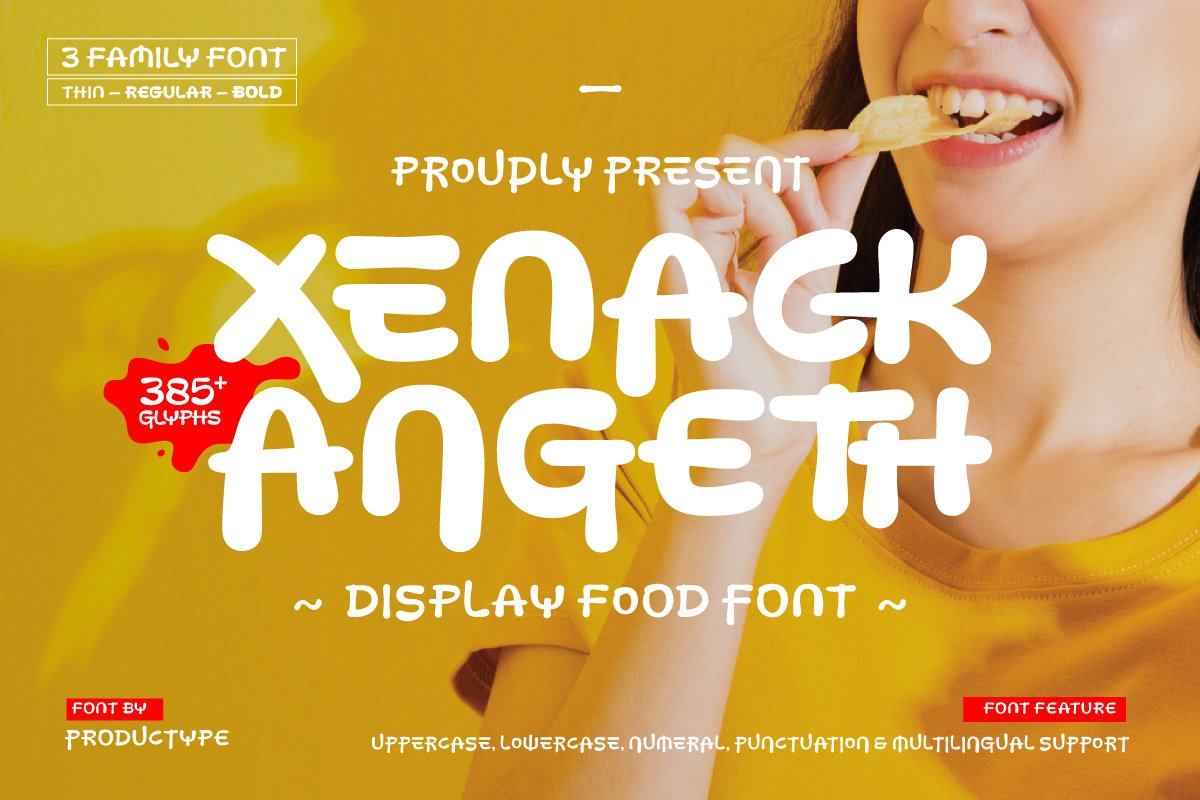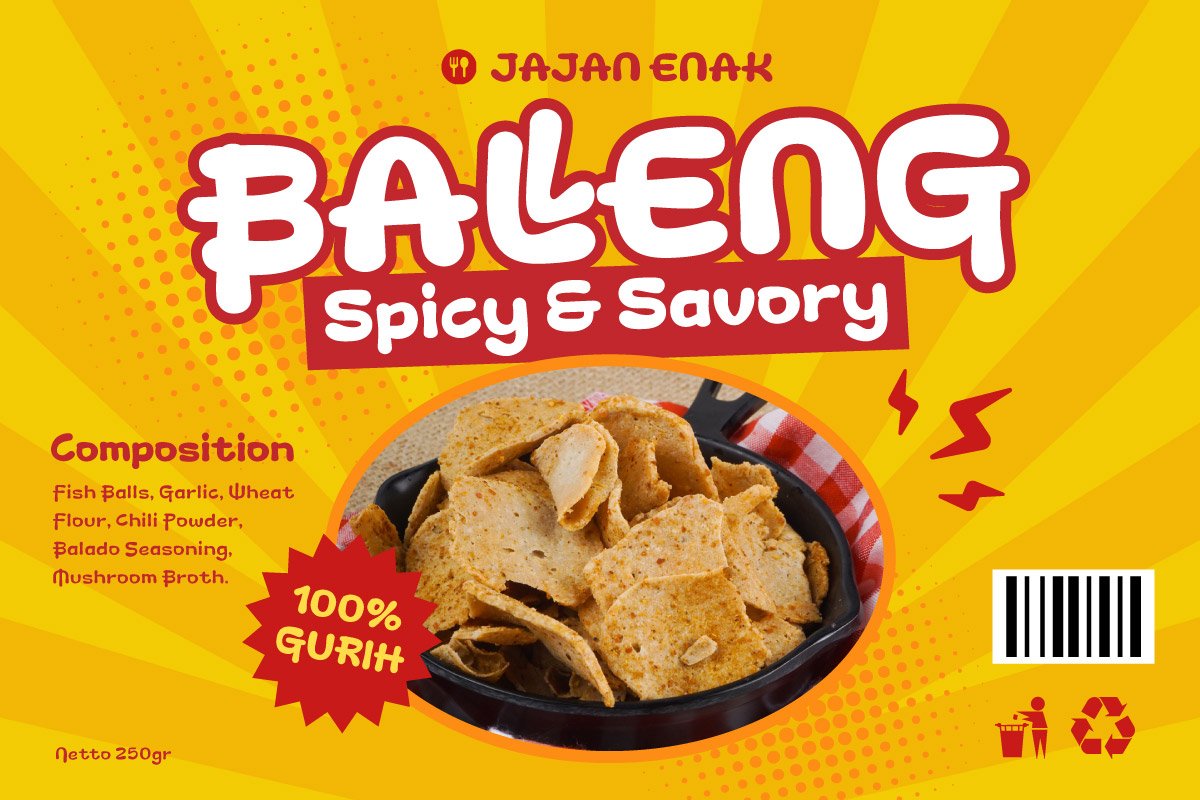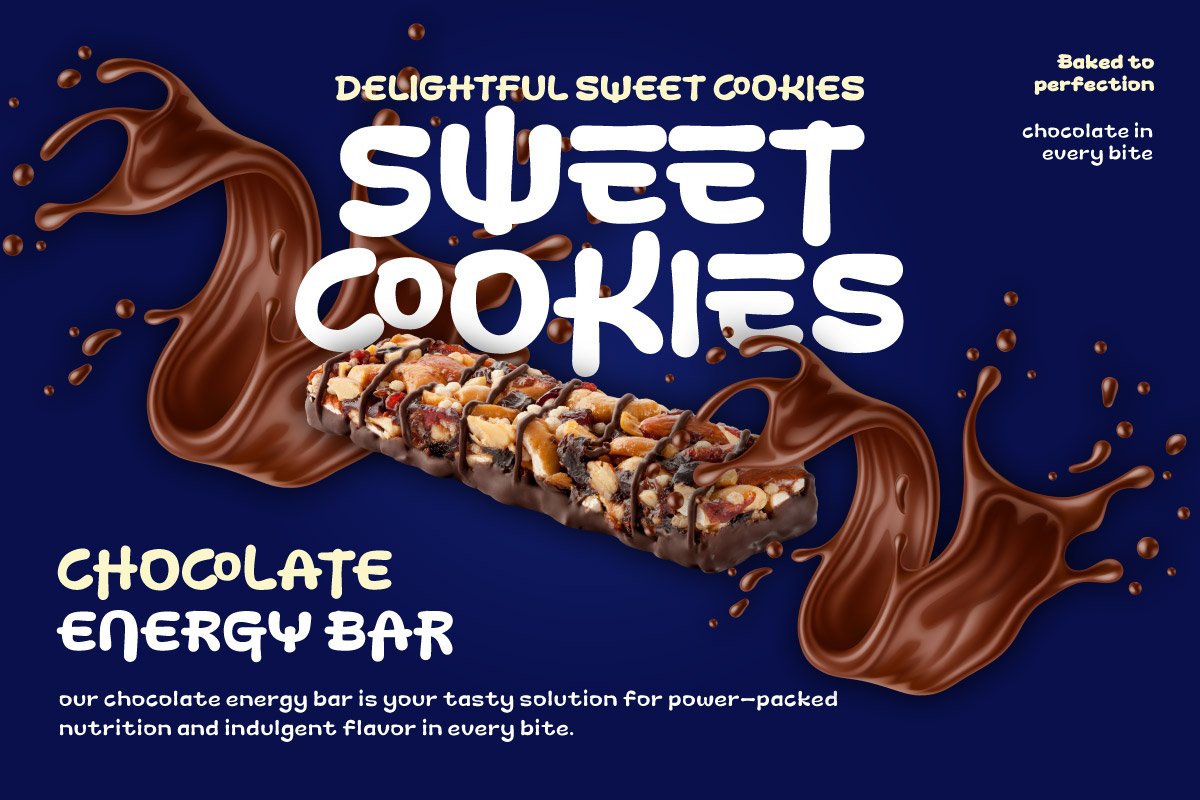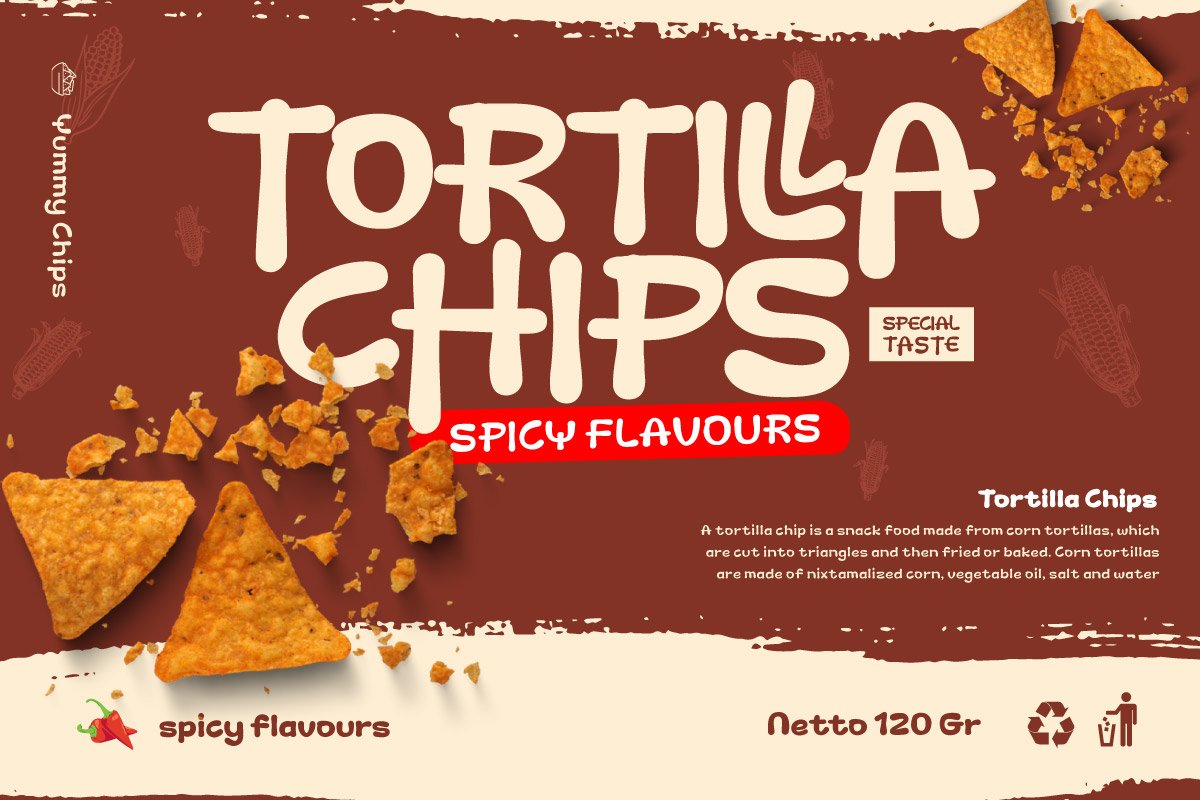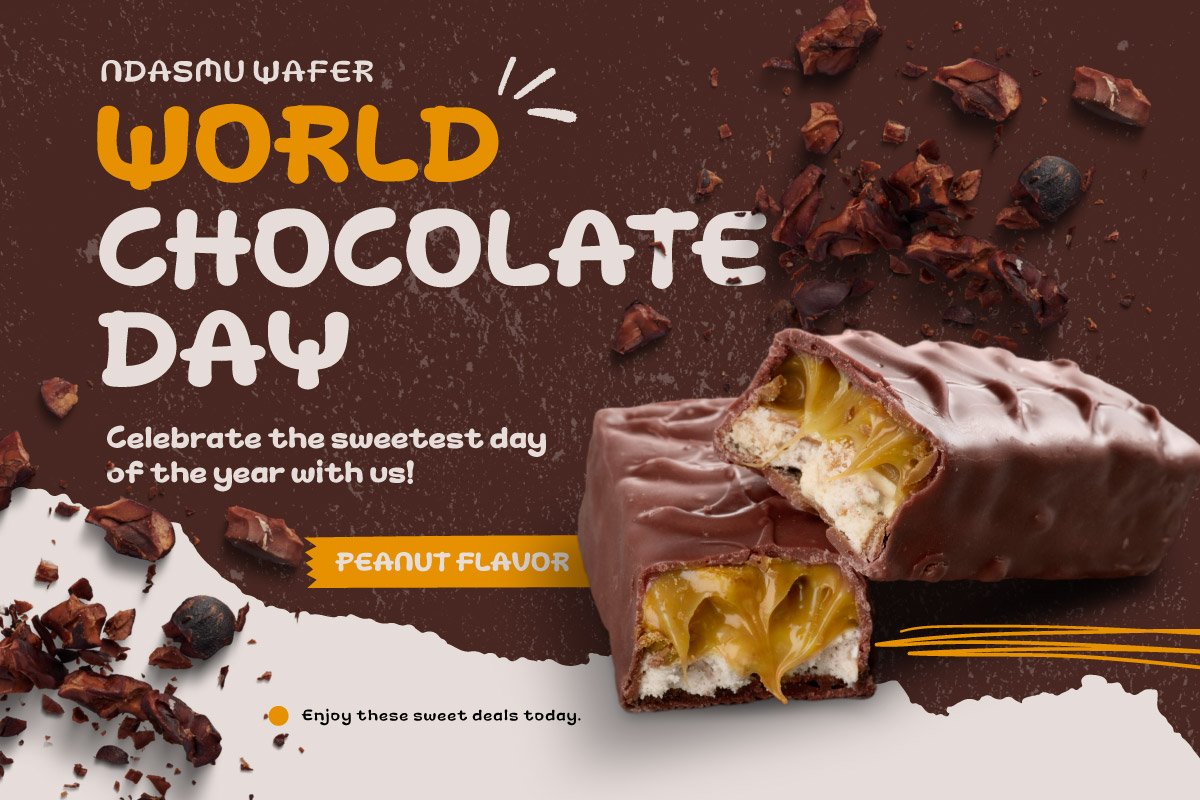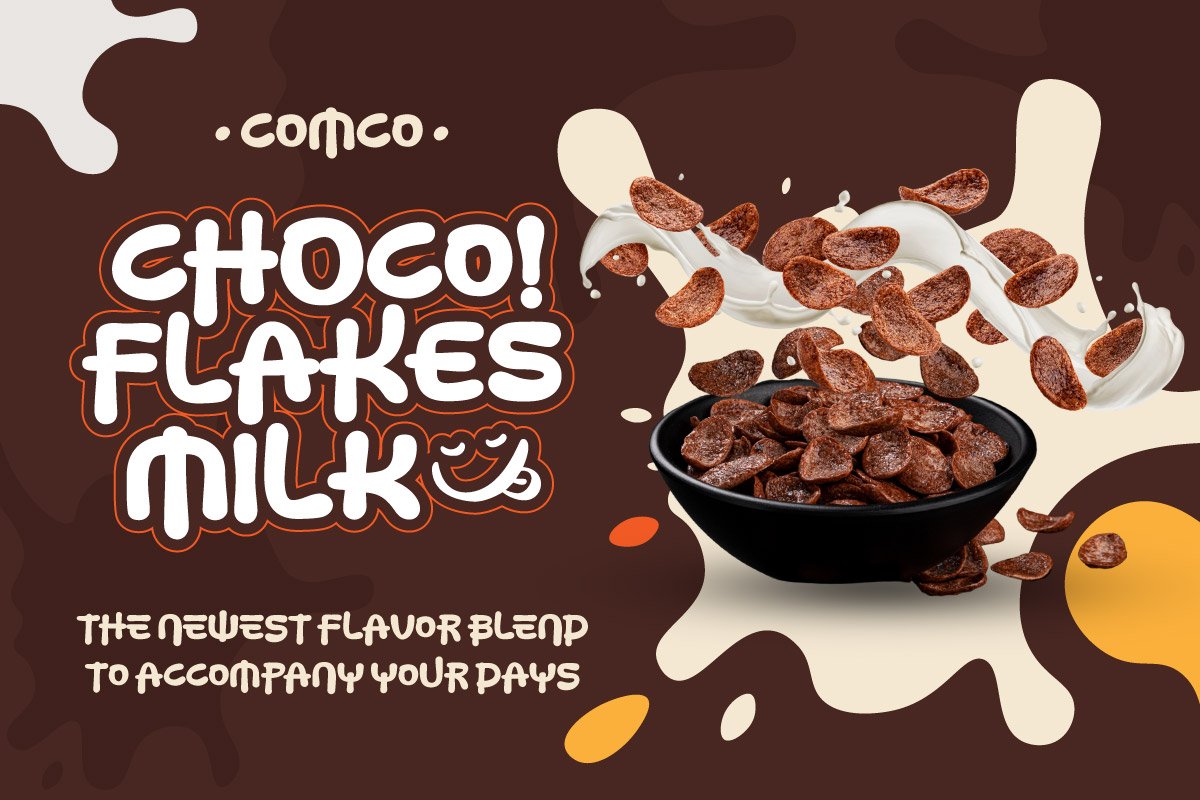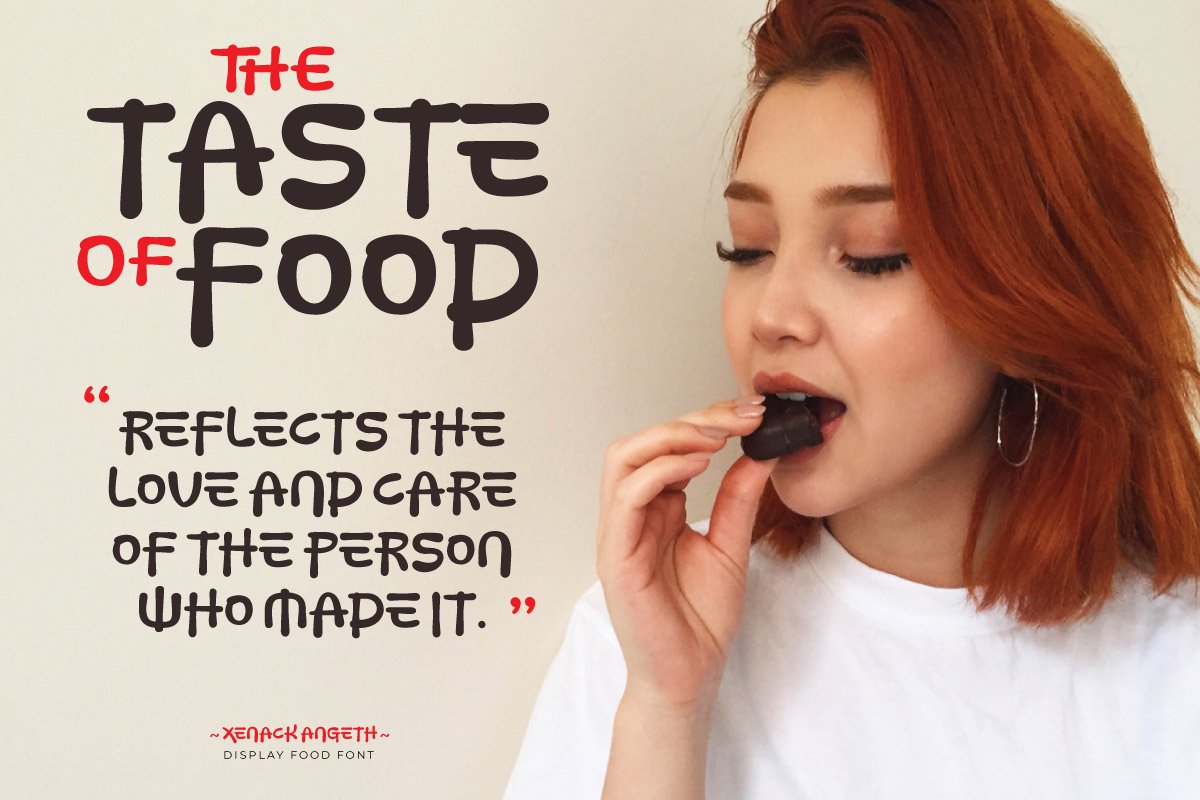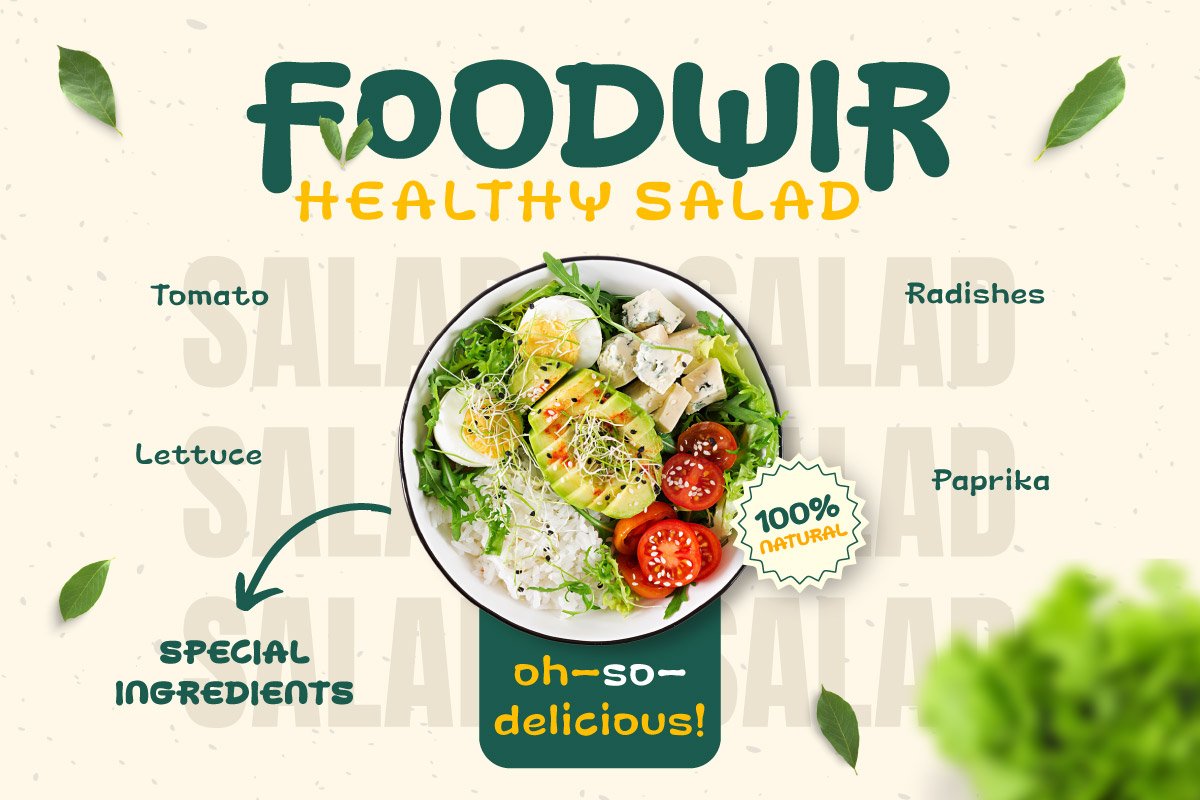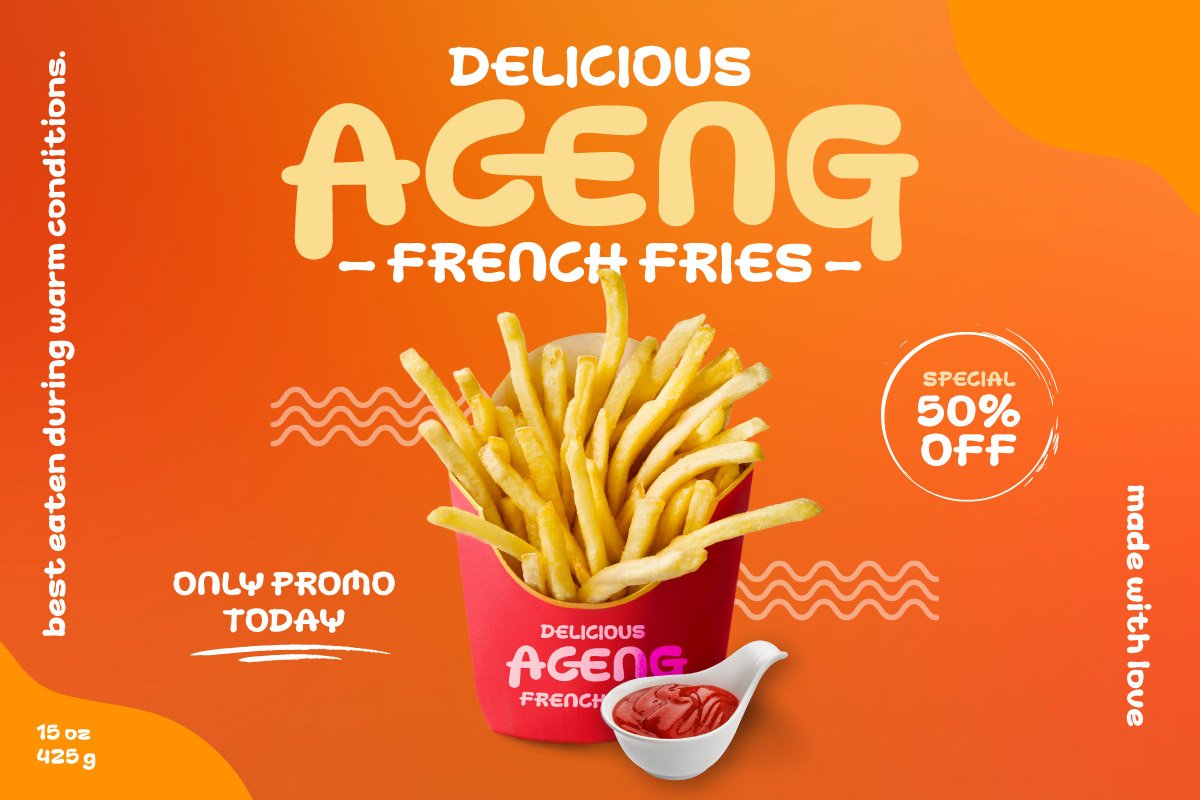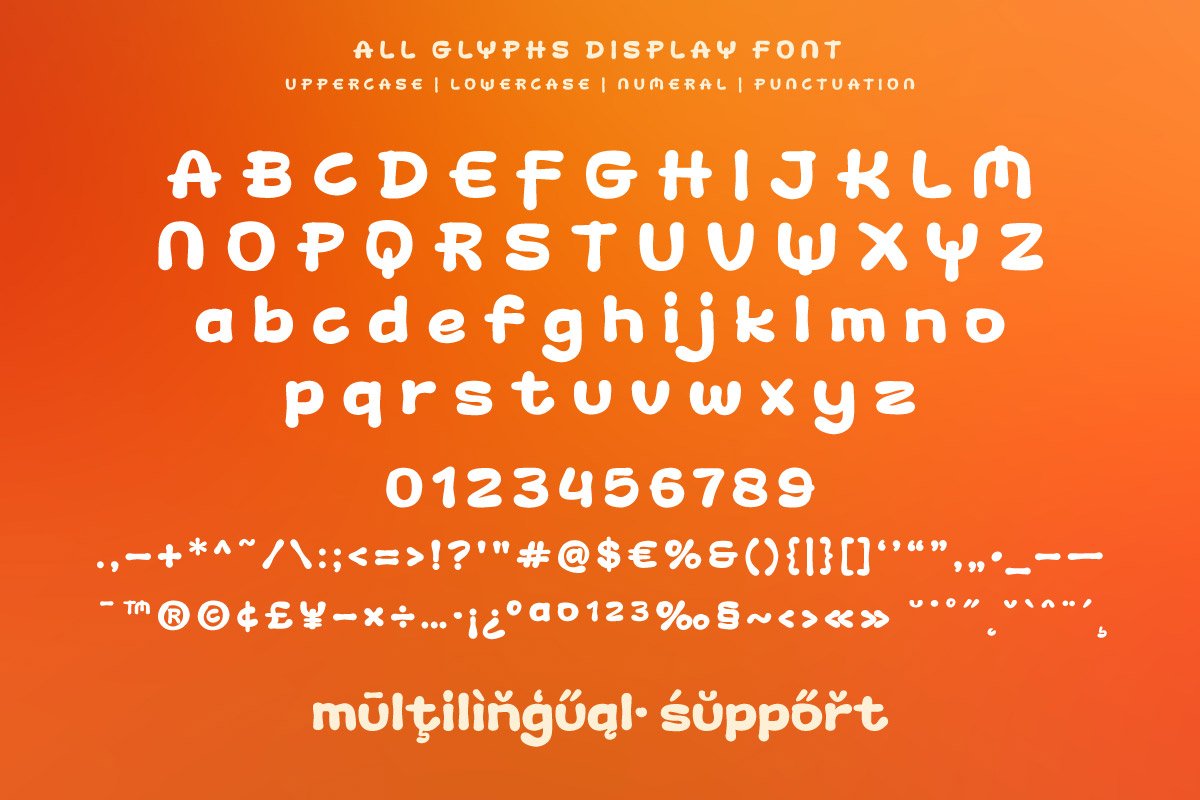
Xenack Angeth – Display Food Font
Xenack Angeth is a font designed to bring fresh air and a new look to food branding. Created to break the monotony of existing fonts, Xenack Angeth introduces unique and refreshing letterforms—perfect for snack brands that want to stand out.
With playful yet professional character shapes, Xenack Angeth is ideal for logos, product packaging, promotional posters, and the visual identity of snack brands. This font delivers a fresh and innovative feel, helping brands appear more distinctive and memorable to customers.
Font Features:
✅ 3 Font Styles: Thin, Regular, Bold
✅ Uppercase & Lowercase
✅ Numeral & Punctuation
✅ Alternate & Ligature
Make your food branding design stand out with Xenack Angeth—because every brand deserves a unique identity!